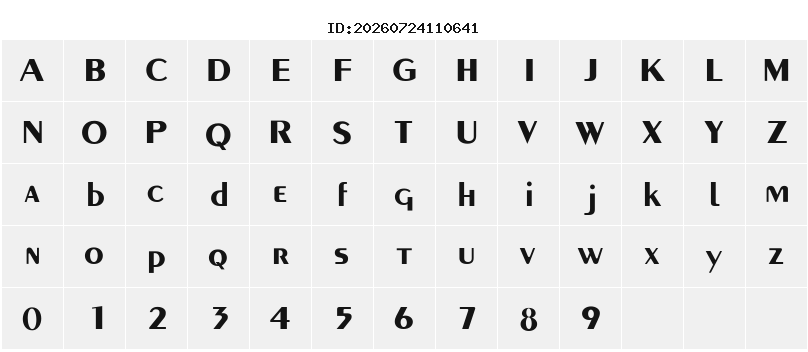
MontereyFLF Preview
• Font Name: MontereyFLF
• Font ID: MontereyFLF-Bold
• Full Font Name: MontereyFLF-Bold
• PostScript Name: MontereyFLF-Bold
About MontereyFLF.ttf
MontereyFLF.ttf is a modern, elegant sans-serif font designed for ultimate readability and visual harmony. Perfect for branding, headlines, web design, and print materials.